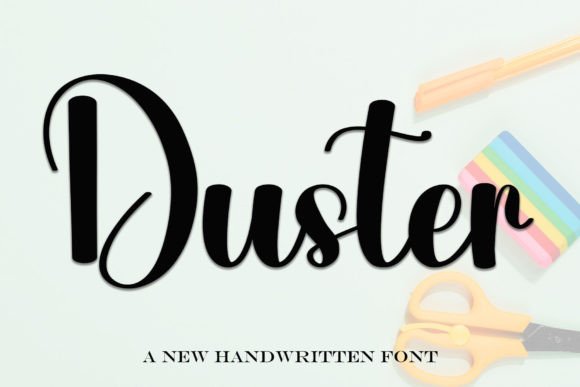
Introducing Duster Font, the ultimate choice for those seeking the best font for display ads! Created by putrasyahreza00, this script font is a true masterpiece that will captivate your audience and elevate your designs to new heights.
With its neat and beautiful handwritten style, Duster Font adds an elegant touch to any project. Its timeless and distinct appearance will make your designs stand out from the crowd, leaving a lasting impression on anyone who lays eyes on them.
Whether you're designing a captivating display ad, a stunning logo, or a mesmerizing website, Duster Font has got you covered. Its versatility allows it to adapt to any creative endeavor, making it the perfect companion for graphic designers, marketers, and entrepreneurs alike.
But what sets Duster Font apart from the rest? It's not just about its visually appealing aesthetics, but also the emotions it evokes. This font has the power to convey a sense of elegance, sophistication, and even playfulness, depending on how you choose to use it. It has the ability to connect with your audience on a deeper level, forging an instant bond that leaves a lasting impact.
Imagine your display ads capturing the attention of potential customers, enticing them to click and explore what you have to offer. With Duster Font, your message will be conveyed in a way that sparks curiosity and creates a desire to learn more. Its captivating nature will enthrall your audience, leaving them eager to discover what lies behind the words.
Furthermore, Duster Font is designed to be user-friendly, allowing you to effortlessly incorporate it into your creative workflow. Its smooth curves and well-balanced letterforms make it a joy to work with, ensuring that your design process is seamless and hassle-free.
So why wait? Unleash your creativity and let Duster Font transform your designs into works of art. Whether you're a seasoned designer or just starting out, this font will empower you to unleash your imagination and create designs that leave a lasting impression.